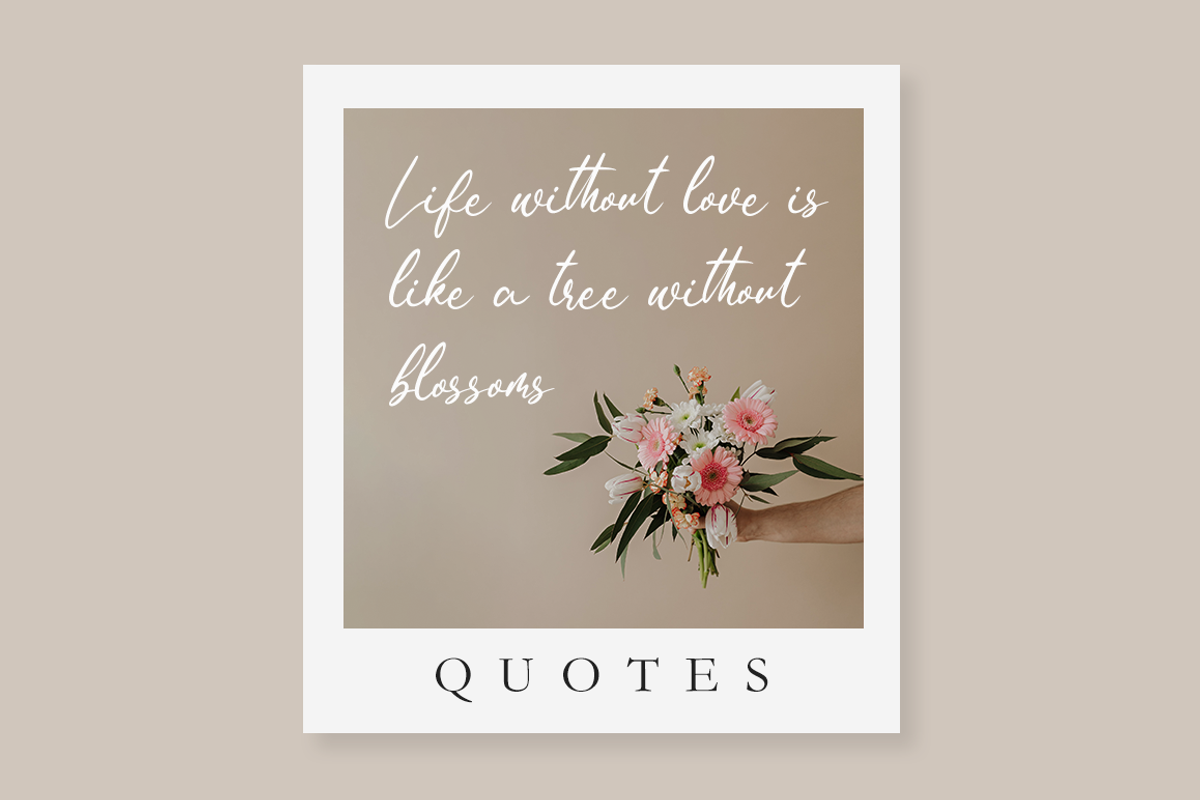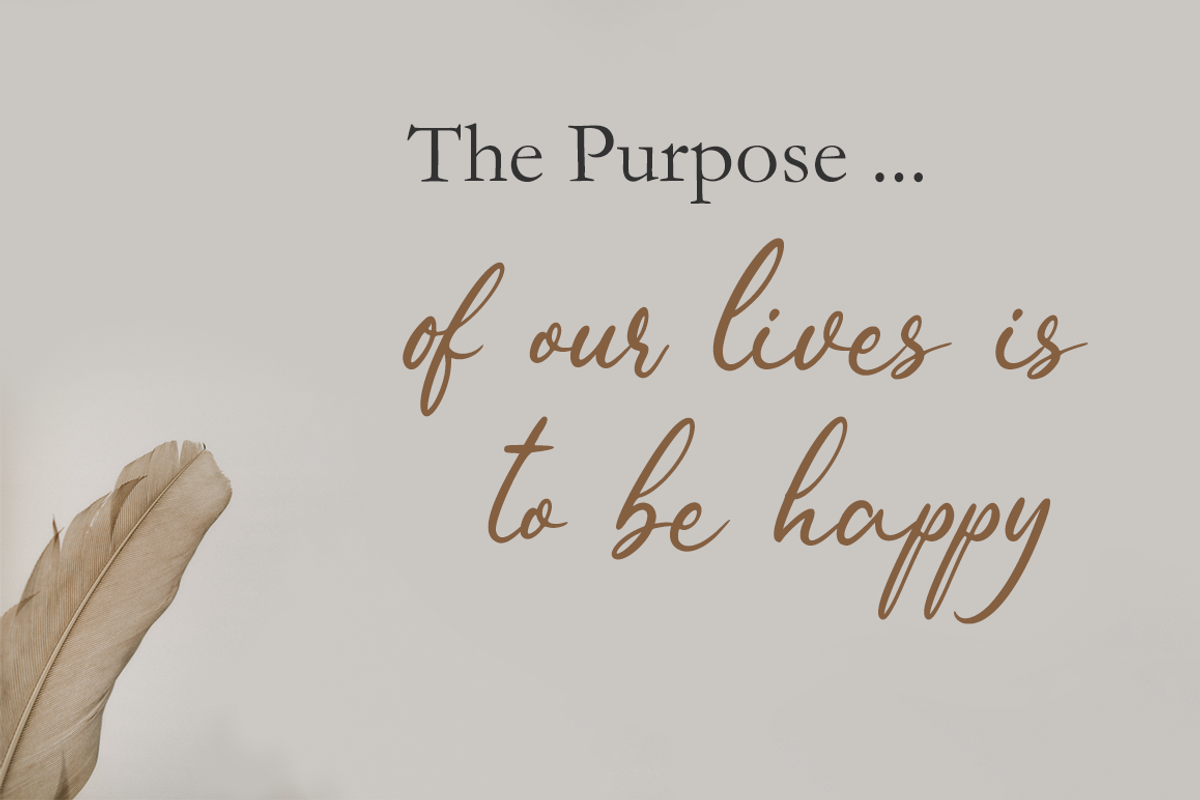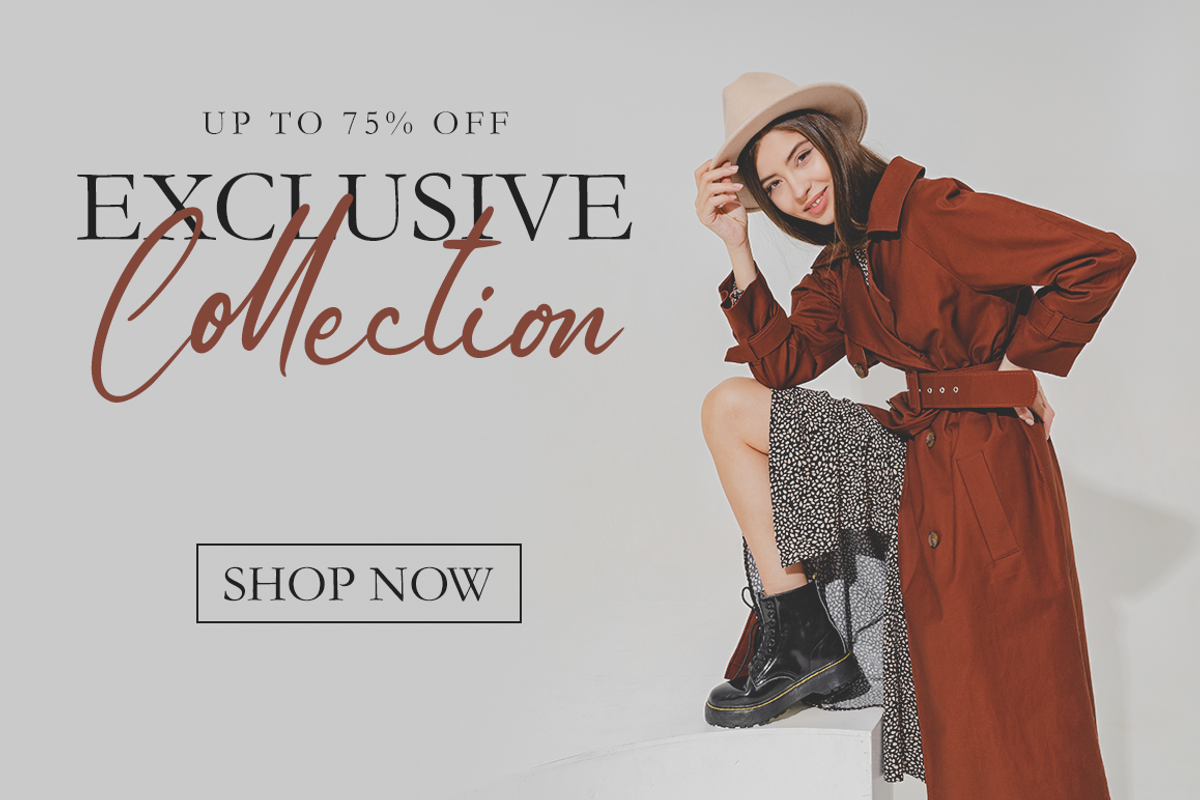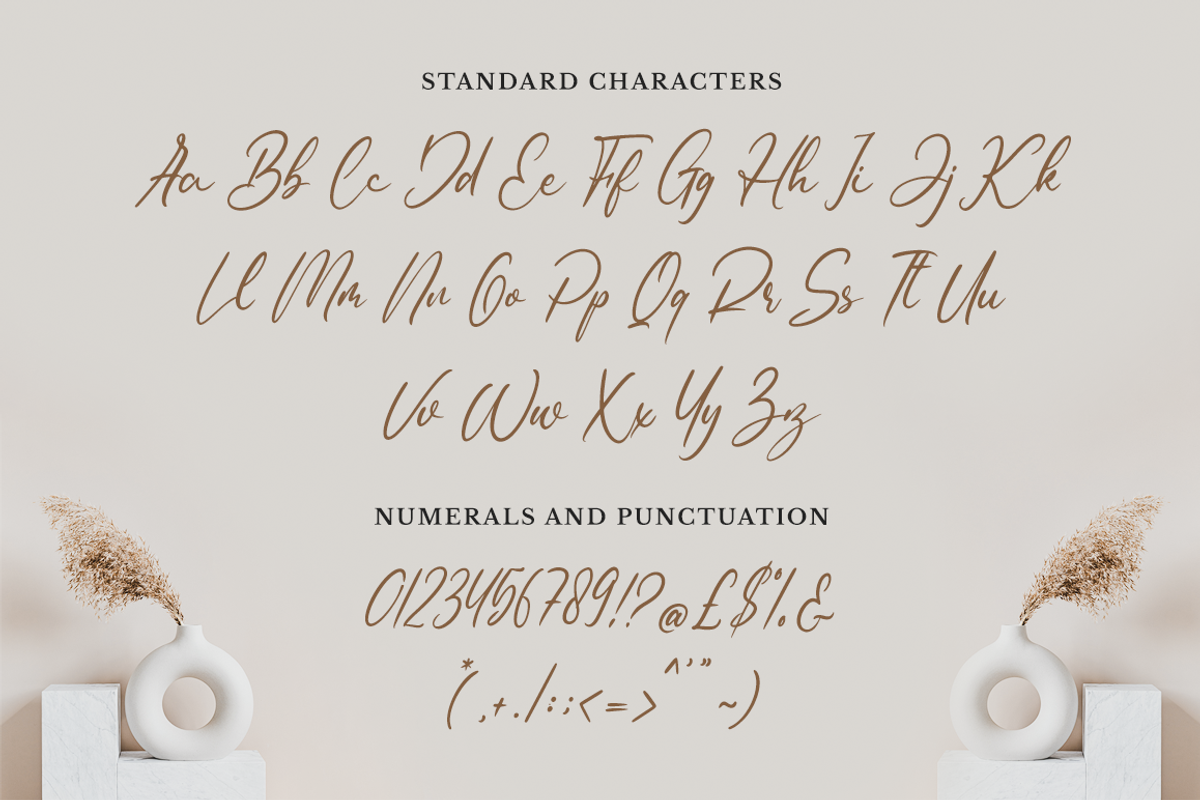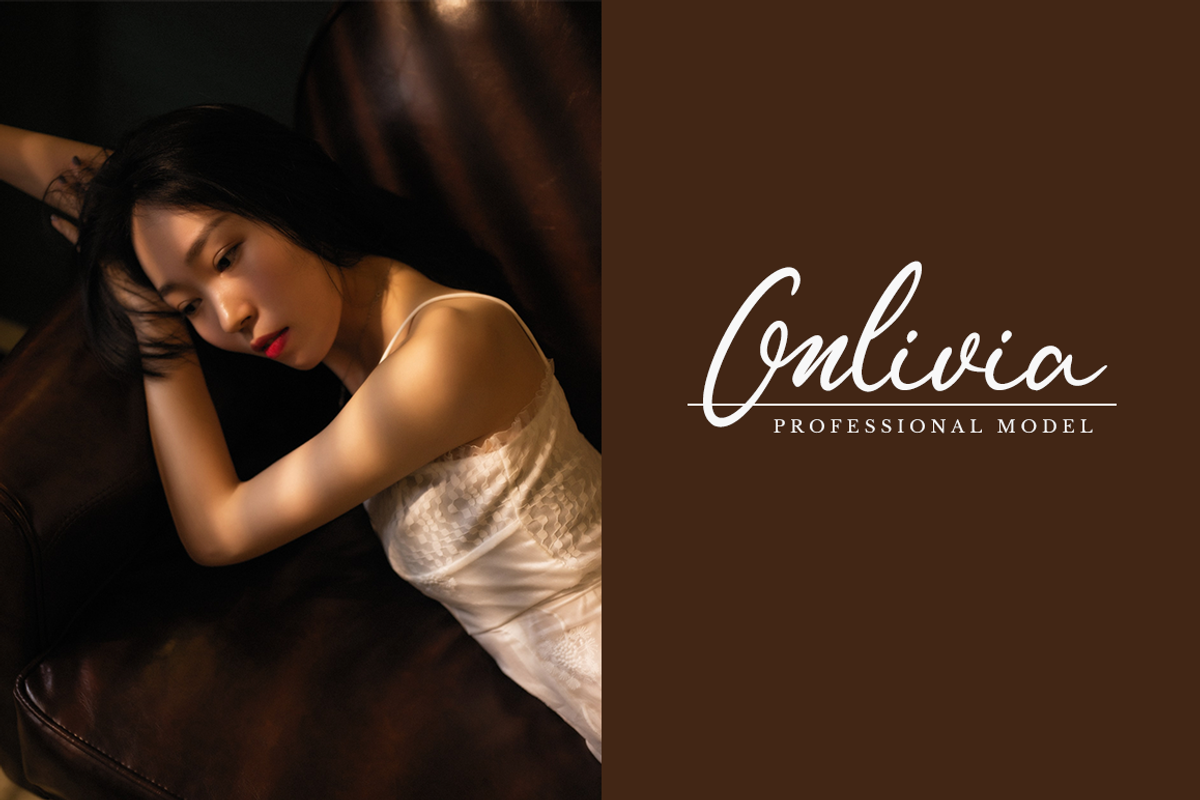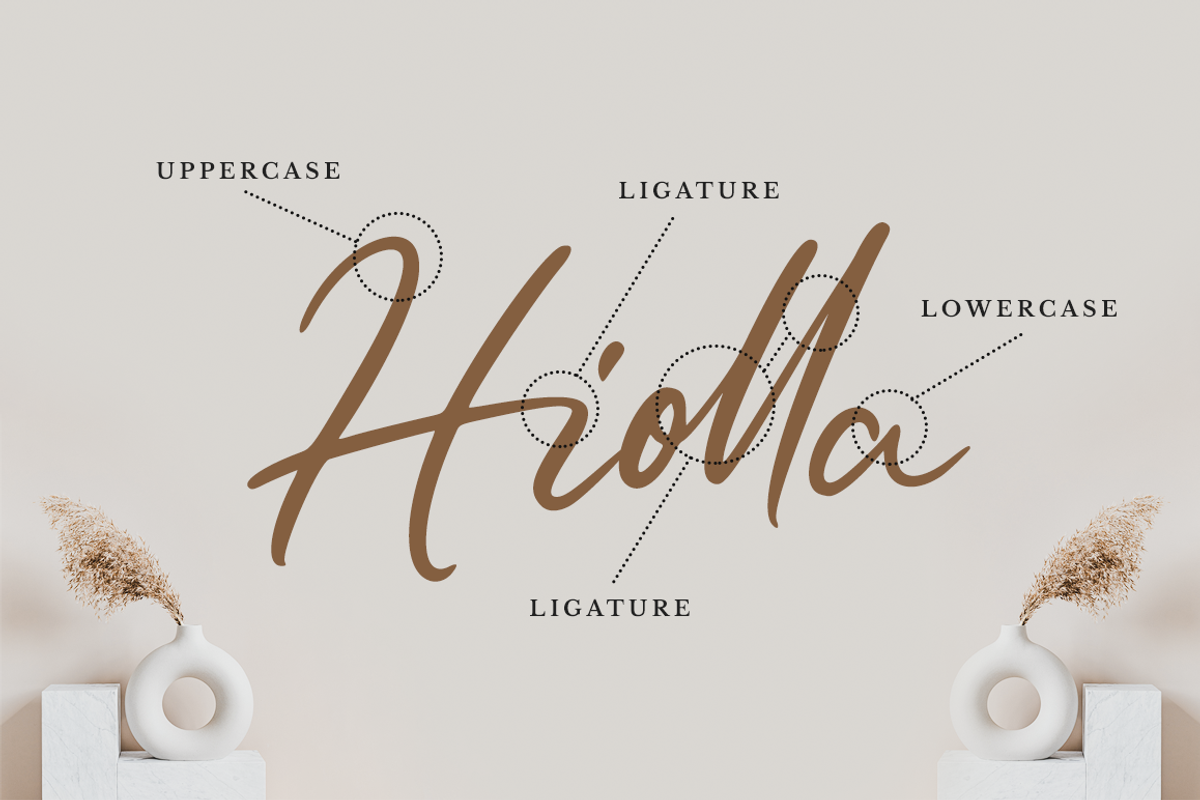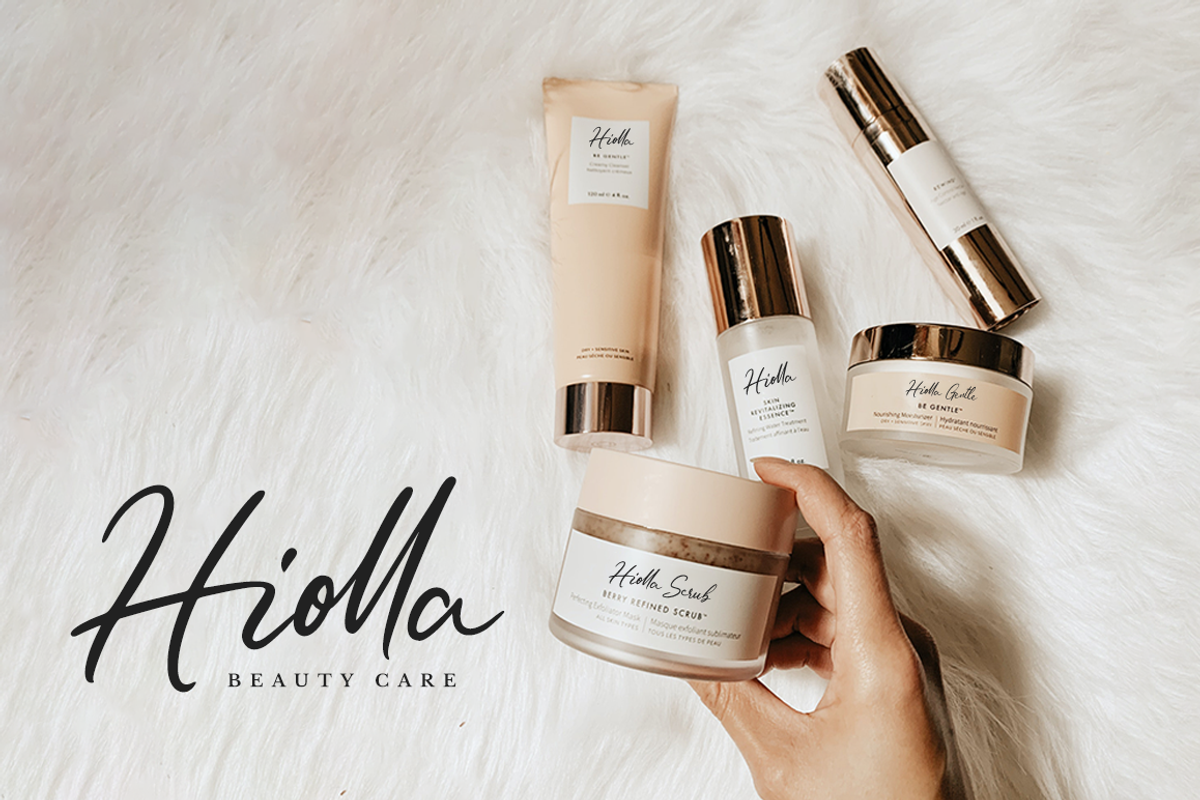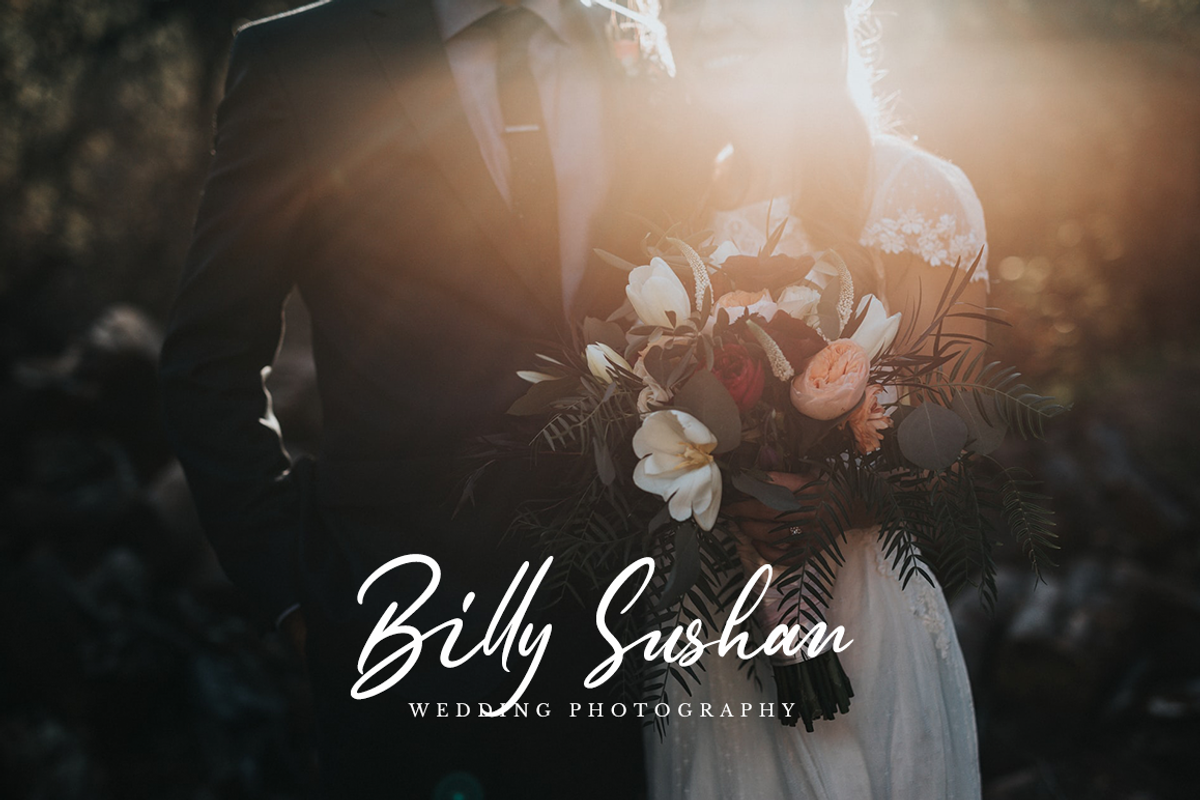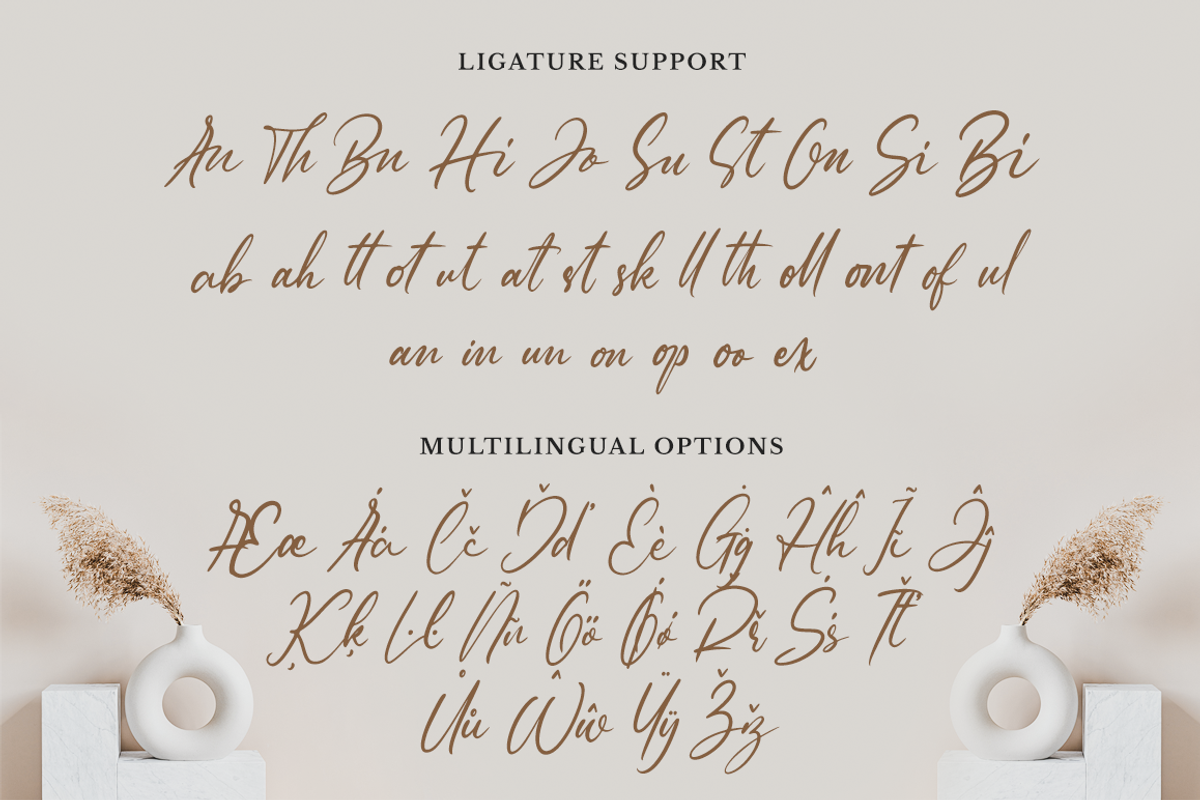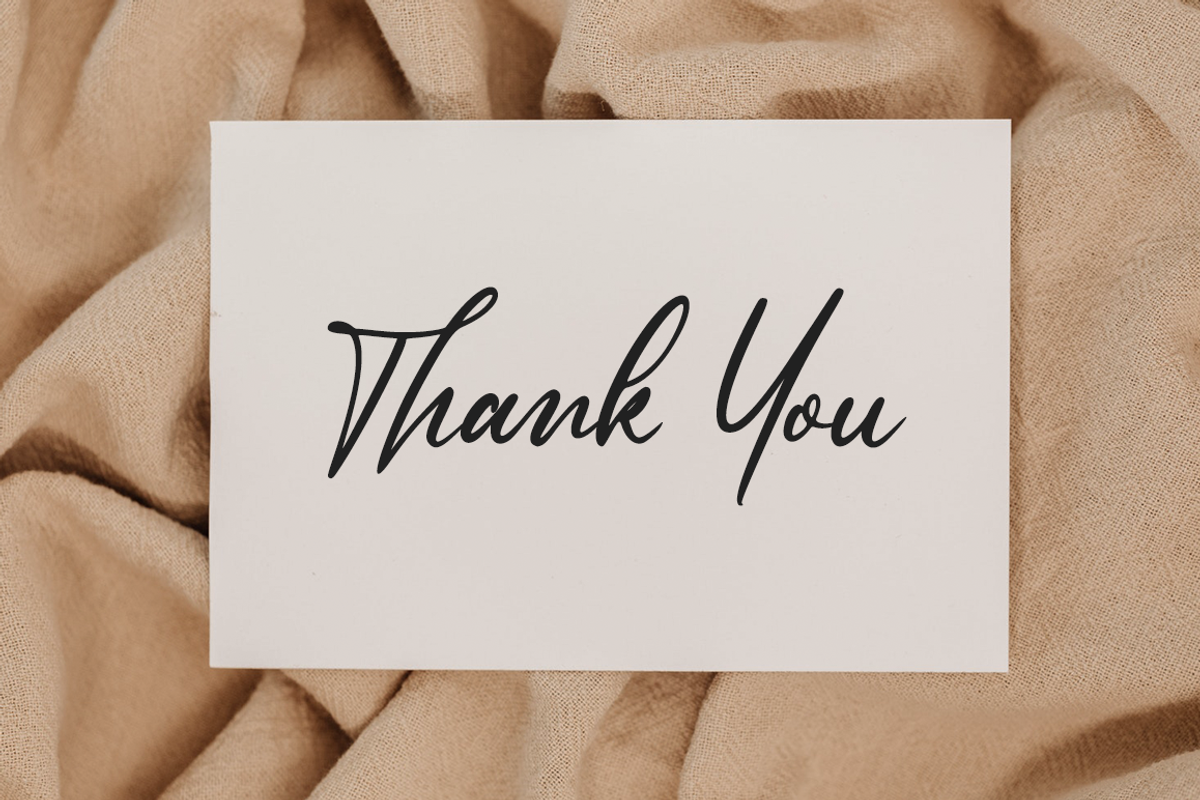
Billahoo a Handwritten Font
Billahoo is a naturally stunning handwritten font. Elegant, sophisticated, and beautifully flowing, this font will take your lovely creations to the next level!